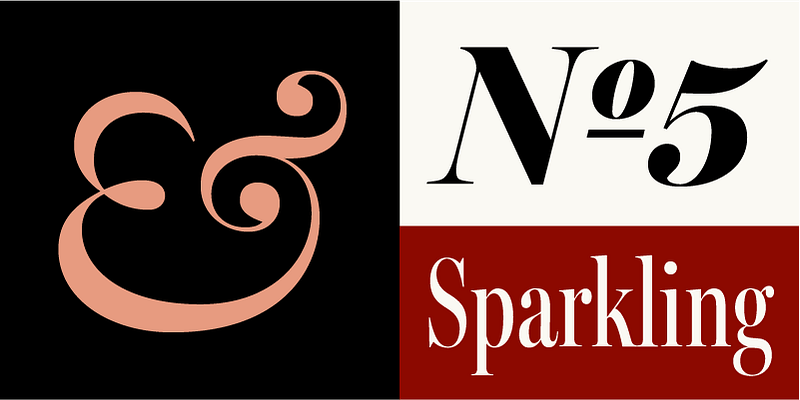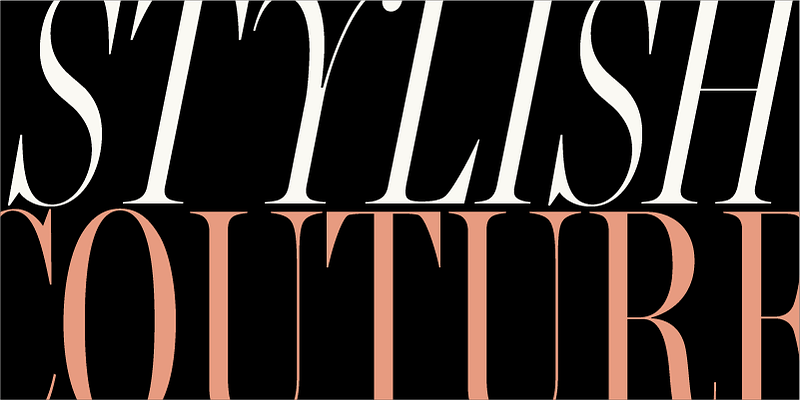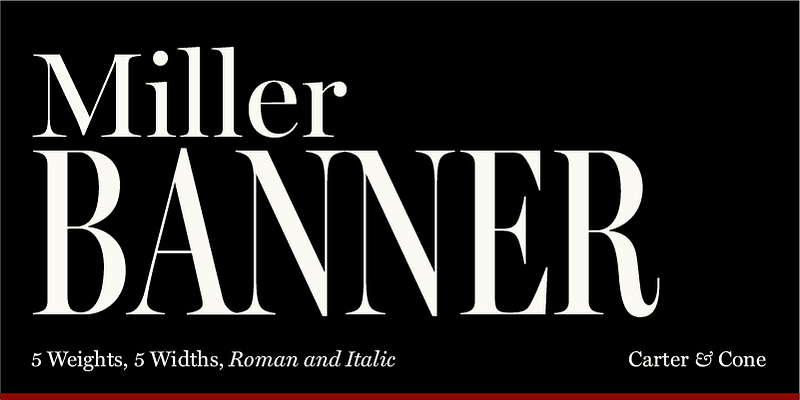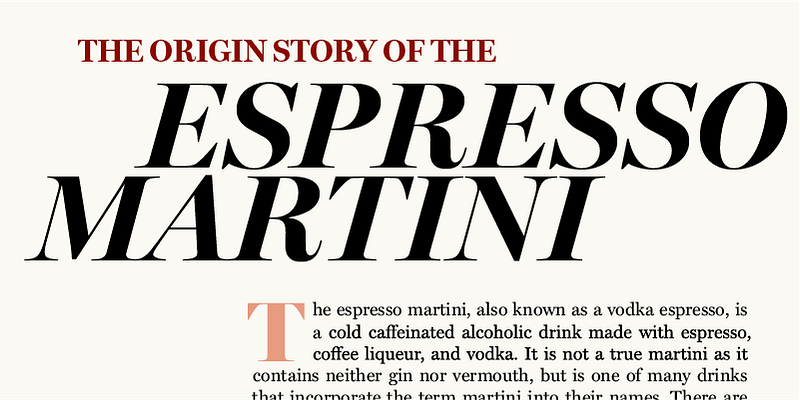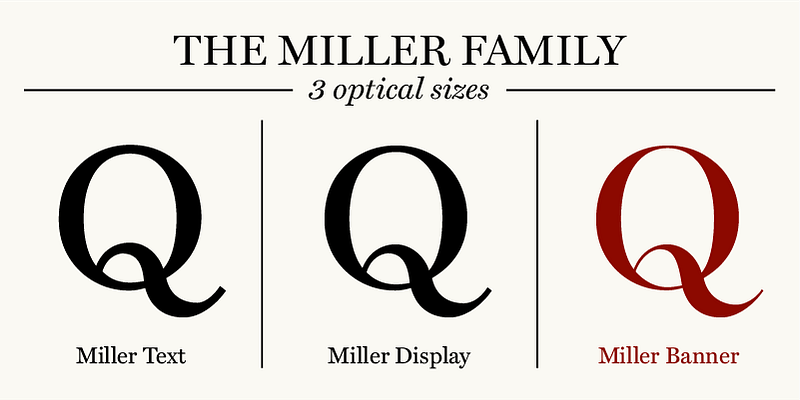
Miller Banner, the most dramatic curves within the Miller family, takes the series to new heights: 100 points and up! Matthew Carter optimized its extreme settings: hairlines sharpened, contrast sweetened, lending grace and gravitas to editorial headlines and fashion brands. Richard Lipton and Jill Pichotta of The Type Founders contributed in the expansion to give the family full range. Available in 5 widths and 5 weights, plus italics, Miller Banner has 50 styles for typographic trendsetting!